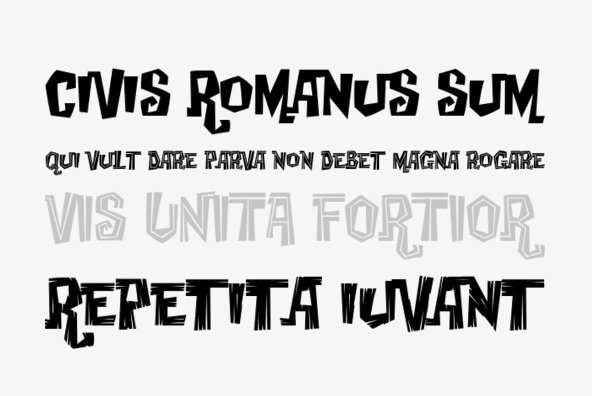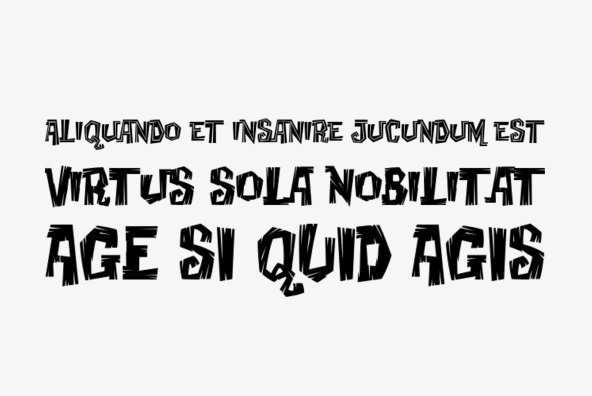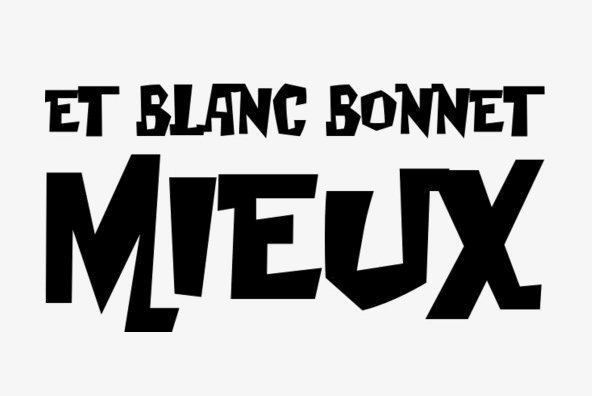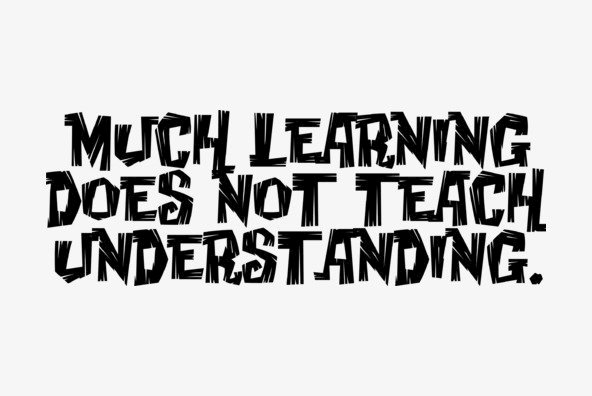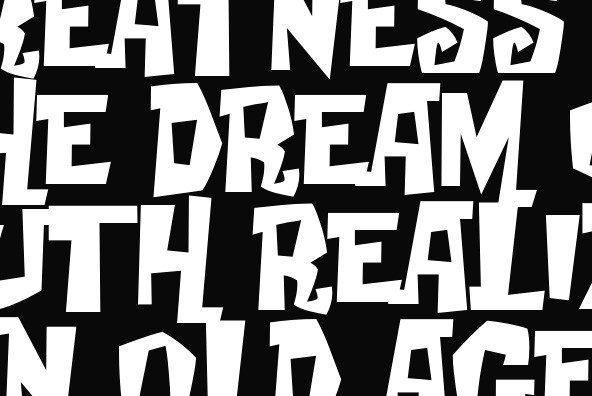
Creaky Family
Foundry: Sideshow
CREAKY TIKI was created for the rum-swillin' castaways out there who crave exotic tribal rituals with a crazy jungle beat!